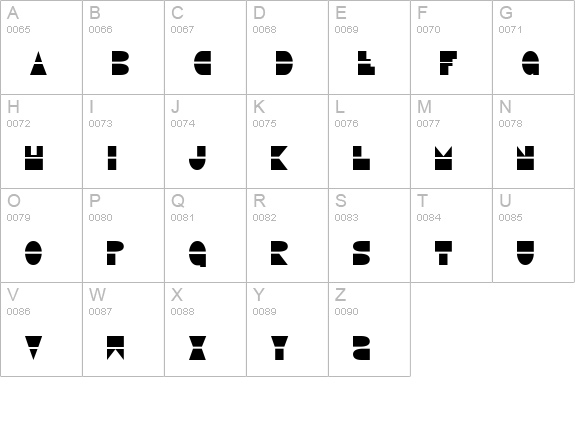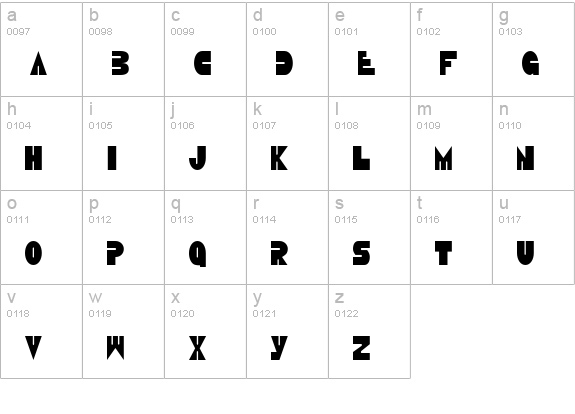
Disco Duck Condensed is a distinctive, condensed-width variant in the Disco typeface family \xE2\x80\x94 well suited to design and typography projects.
Disco Duck Condensed font is a groovy and energetic typeface that captures the essence of the disco era with its sleek and stylish design. This font is perfect for adding a touch of retro flair to your designs, whether you're creating party invitations, posters, or album covers. With its condensed letterforms and playful curves, Disco Duck Condensed exudes a sense of fun and excitement. And the best part? Disco Duck Condensed font is completely free to download at FontsMarket.com! So go ahead and add a bit of disco fever to your projects with this fabulous font today.